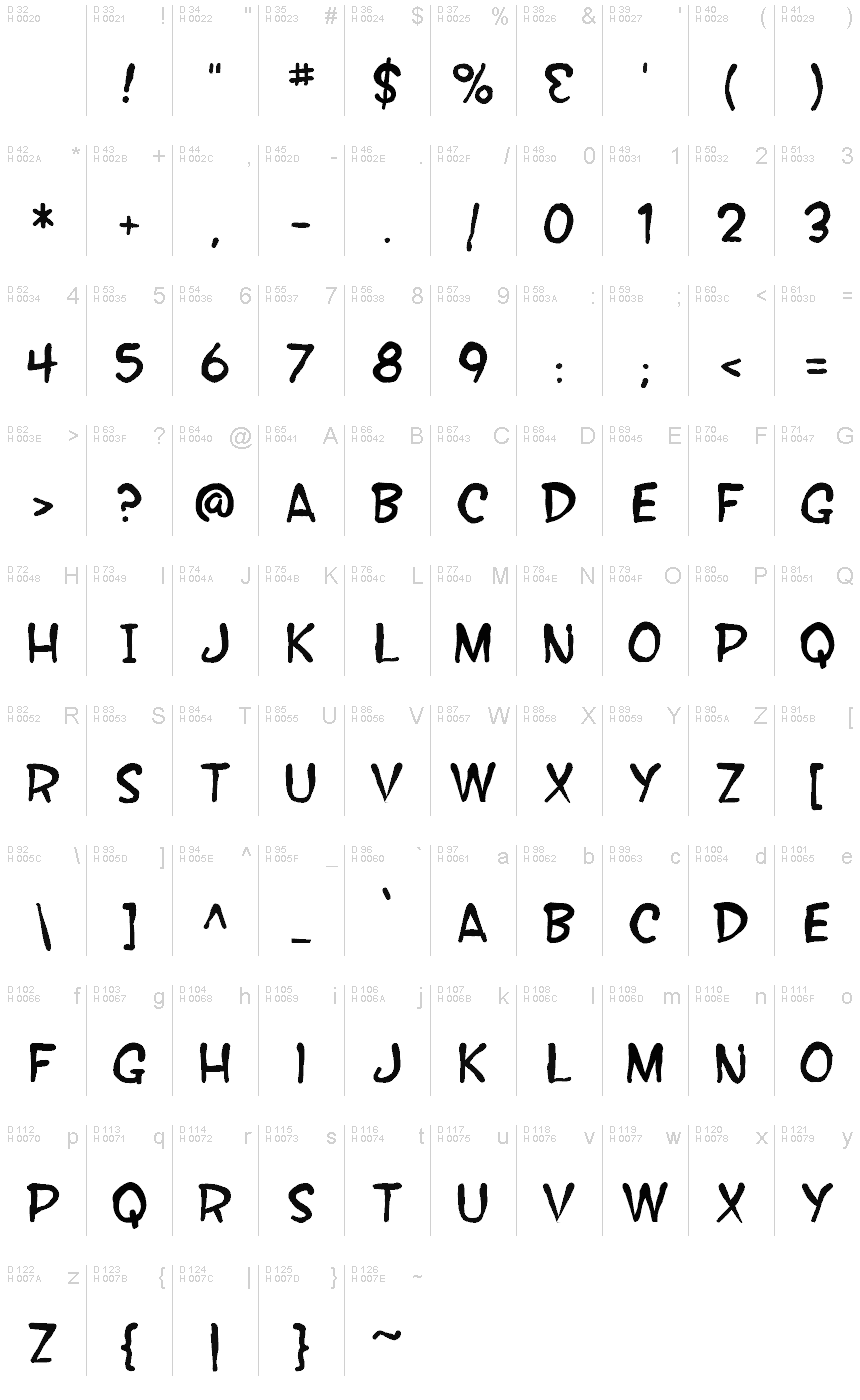
SF Wonder Comic Blotch
SF Wonder Comic Blotch is not your ordinary font. With its unique and captivating design, it brings a playful and energetic element to any creative project. As part of the SF Wonder Comic font family, it perfectly captures the essence of comic book style, making it ideal for projects that require a fun and lighthearted touch.
This display font stands out with its blotchy texture, adding depth and character to your designs. Whether you're designing a children's book, creating eye-catching posters, or even developing an engaging website, SF Wonder Comic Blotch will undoubtedly make your work stand out from the crowd.
Designed by the renowned ShyFonts Type Foundry, this font is crafted with meticulous attention to detail. Its carefully designed letterforms ensure legibility while maintaining an authentic comic book feel. So go ahead and unleash your creativity with SF Wonder Comic Blotch - the perfect choice for all your unique and vibrant design needs.
This display font stands out with its blotchy texture, adding depth and character to your designs. Whether you're designing a children's book, creating eye-catching posters, or even developing an engaging website, SF Wonder Comic Blotch will undoubtedly make your work stand out from the crowd.
Designed by the renowned ShyFonts Type Foundry, this font is crafted with meticulous attention to detail. Its carefully designed letterforms ensure legibility while maintaining an authentic comic book feel. So go ahead and unleash your creativity with SF Wonder Comic Blotch - the perfect choice for all your unique and vibrant design needs.